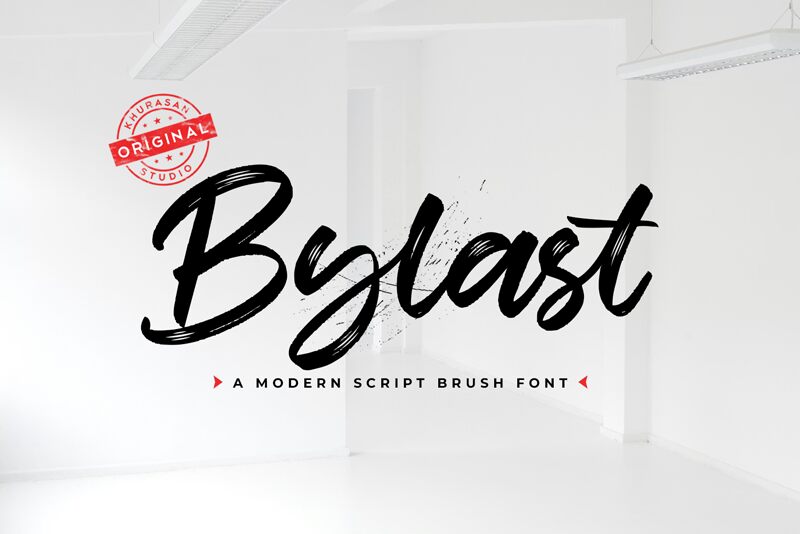
Bylast font family by Khurasan™ is a spirited and energetic design with textured brush free font forms inspired by the expressive artistic quality of natural paint strokes. Its authentic hand-lettered style is modern and lively, combining dynamic letterforms with thick and thin strokes. Each letter feels unique and casual which gives a strong and bold voice suitable in each design.
Suitable in branding, headings, headers, social media, posters, products, packaging, and company invitations. Its rough and energetic character becomes instantly noticeable even from long distances and even more so in bigger font size prints. Apply its dynamic character in designs related to nightlife, music, entertainment, art, food, and fashion.